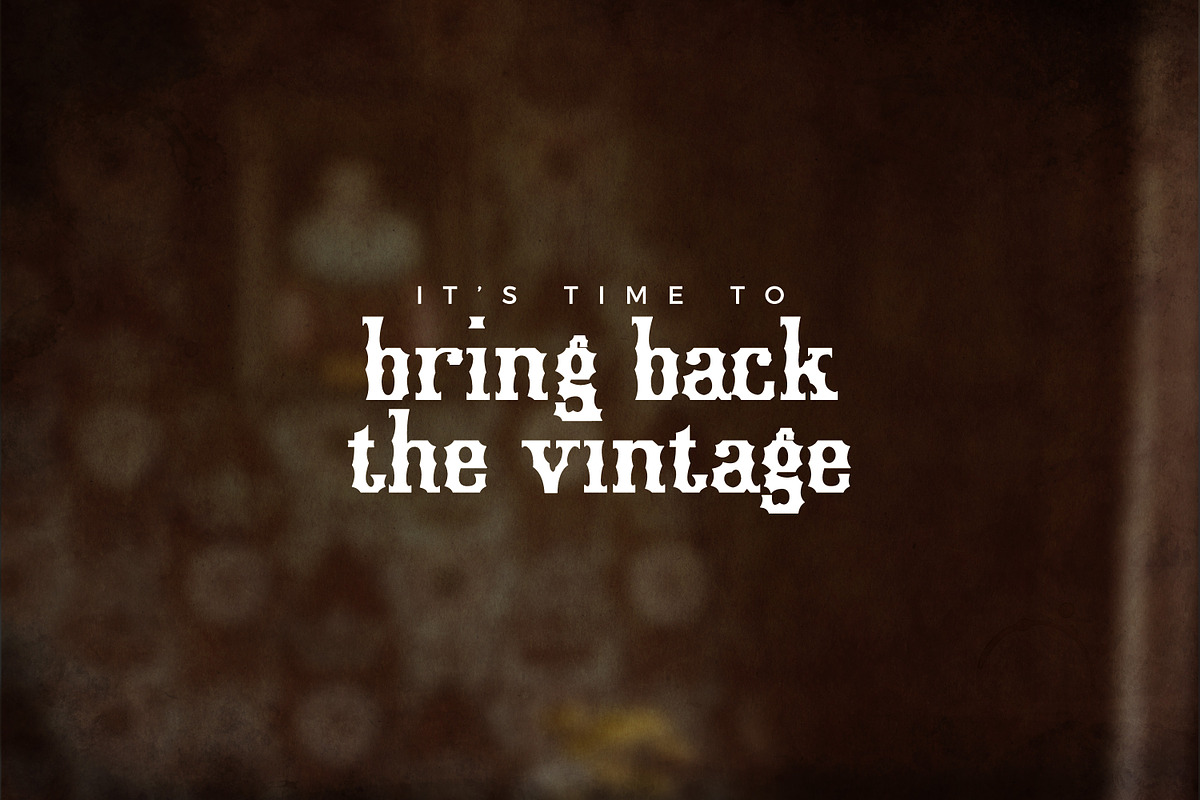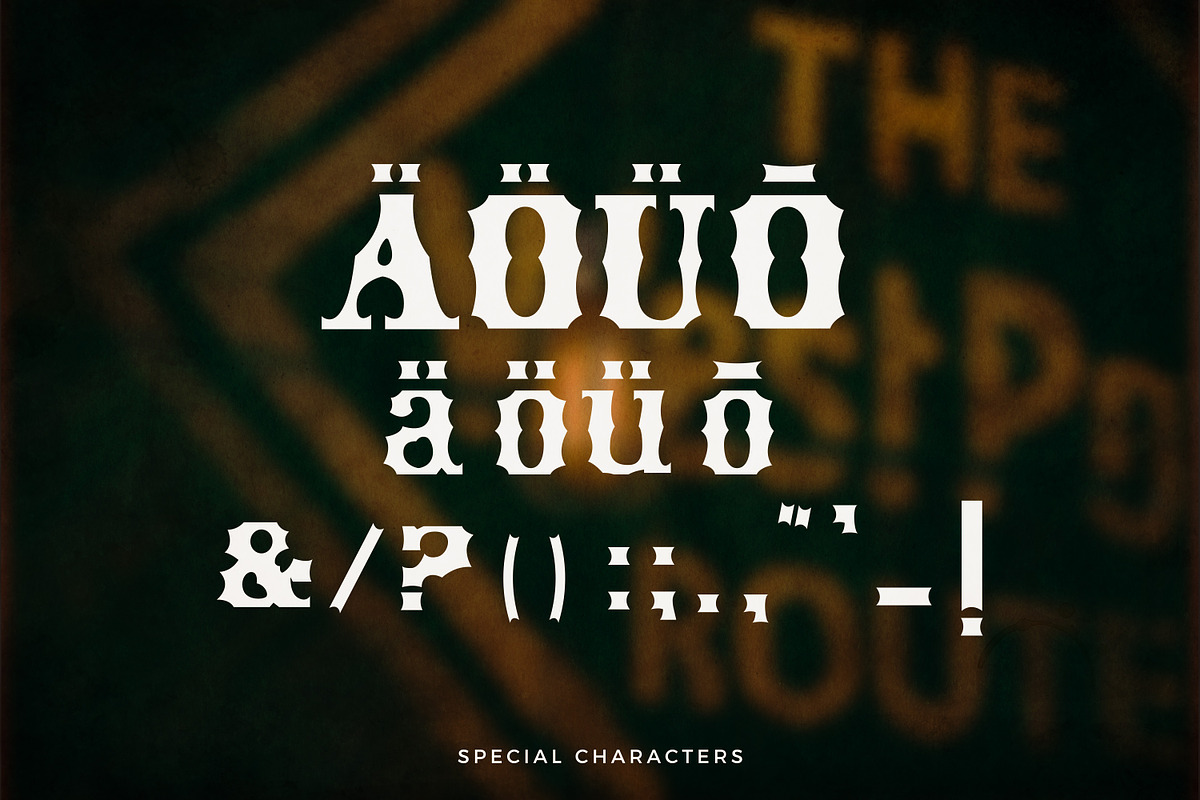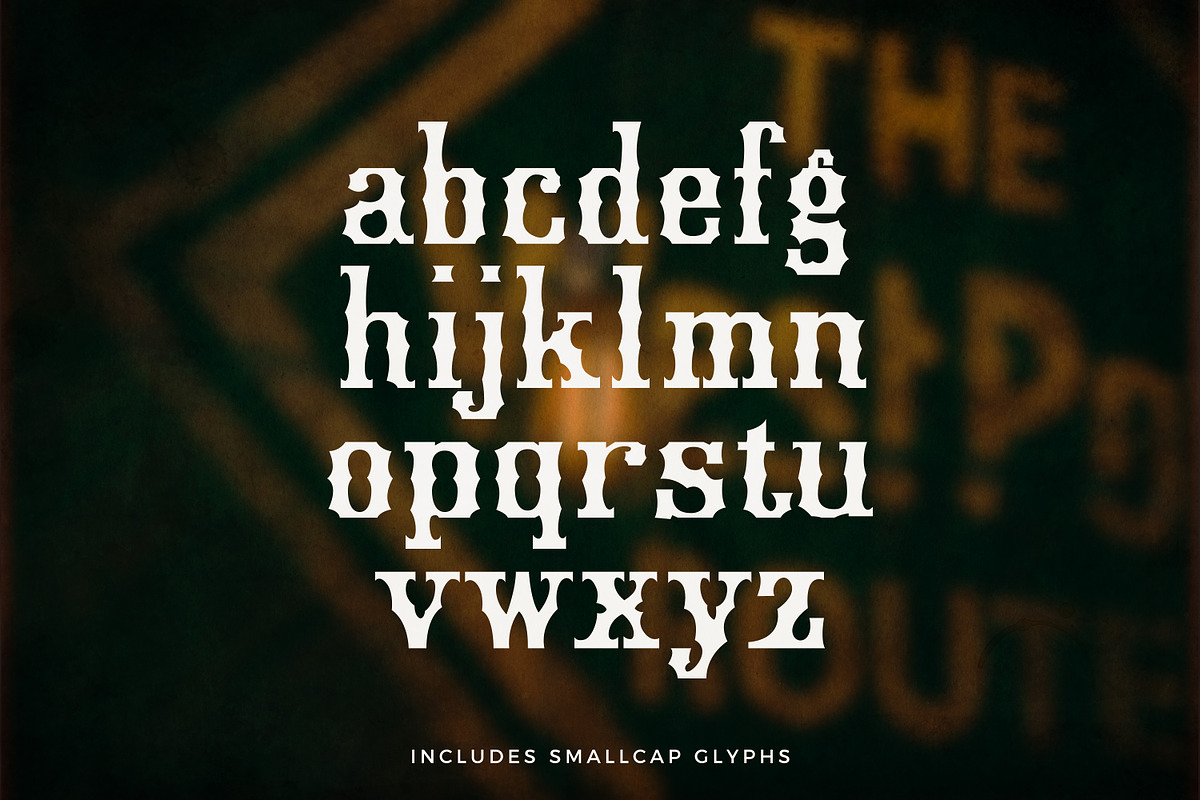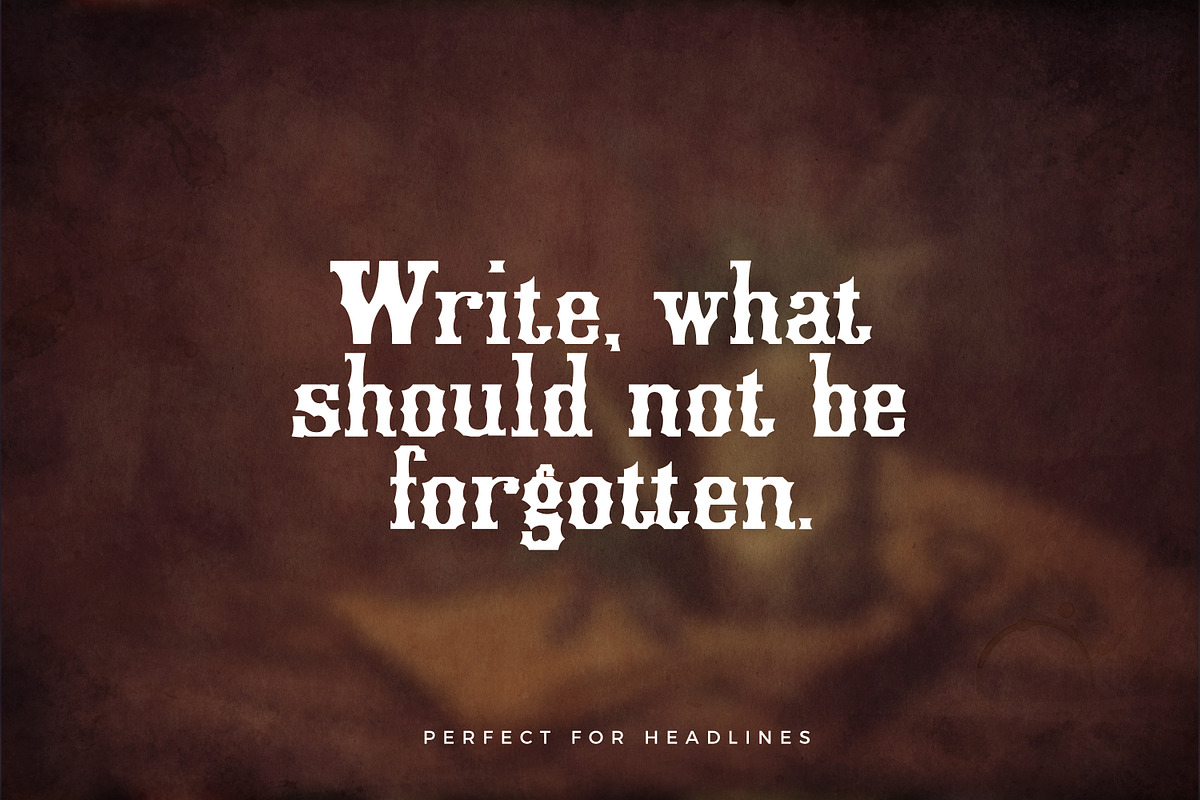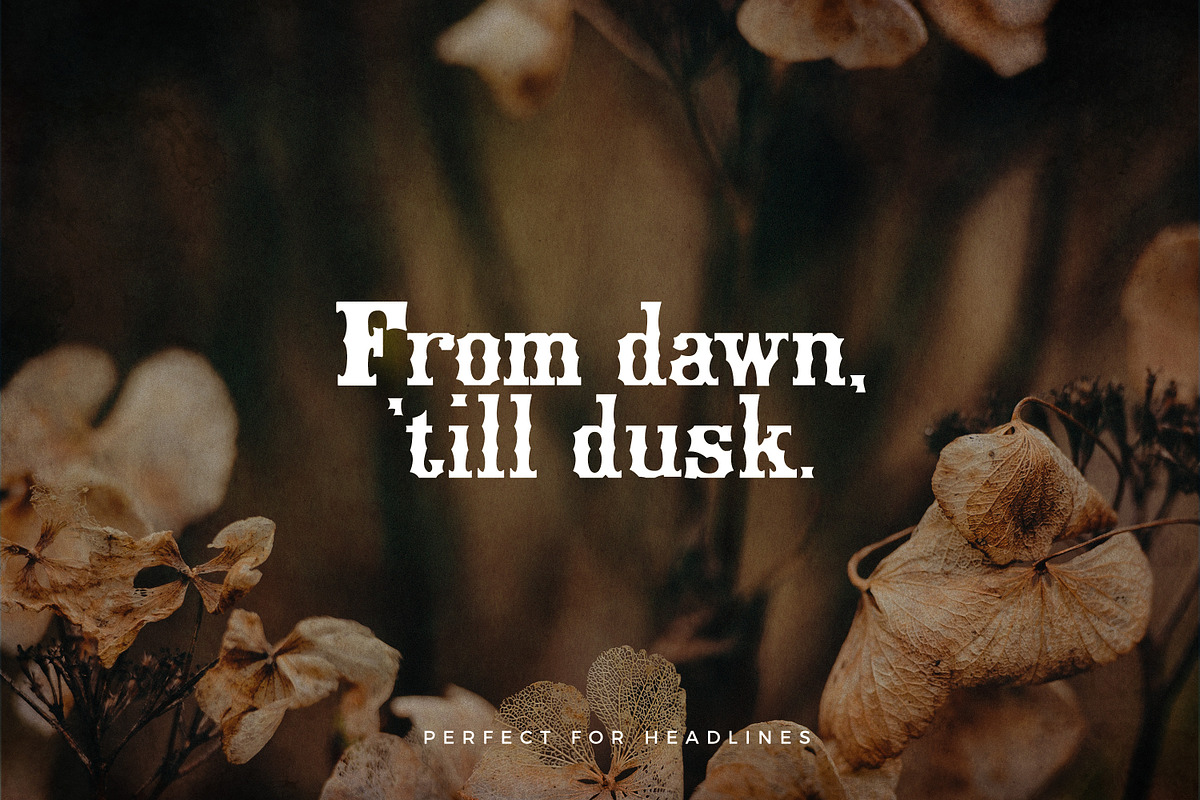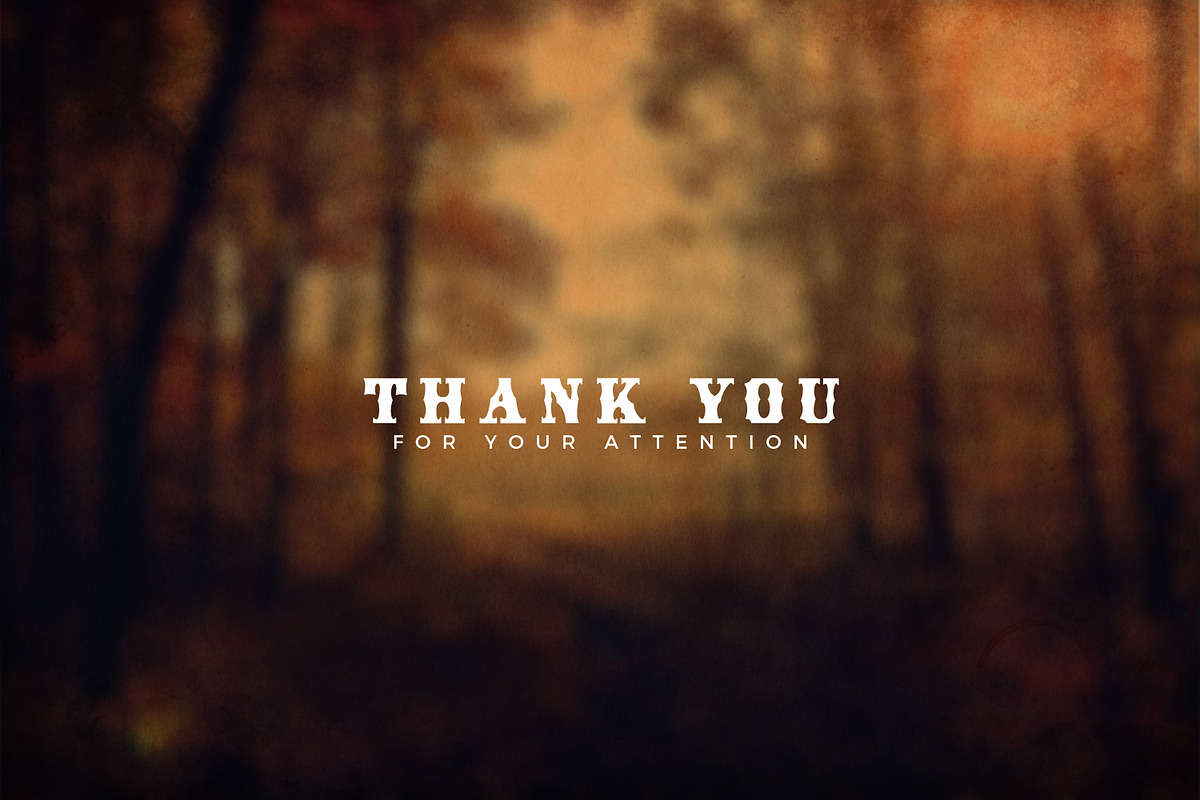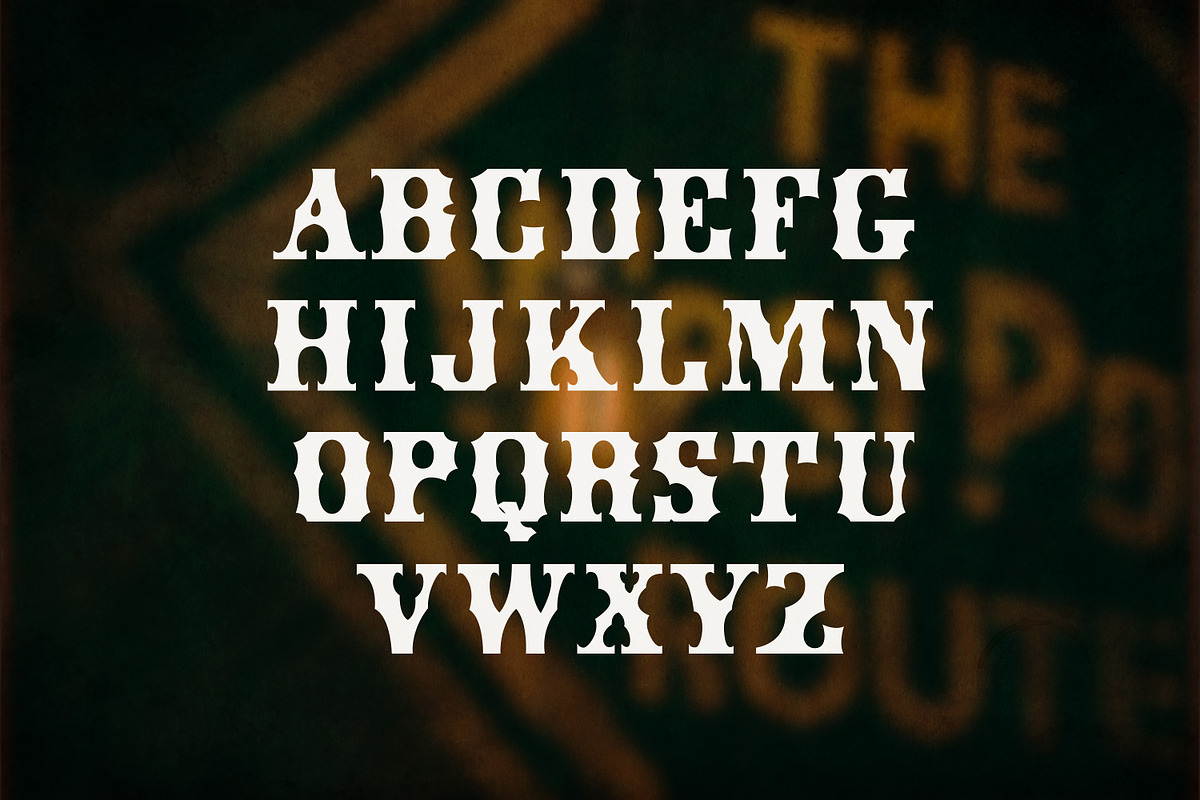
Xavier - Vintage Display Font
Introducing Xavier - A vintage spiky display font Xavier has a slightly Victorian era feel with a touch of steampunk vibes.
This font is best suited for large display sizes such as : logos, quotes, packaging, merchandise,headlines, advertising and more.
Selection of special characters
Pairs perfectly with any modern Sans-Serif font, such as Montserrat (used in the previews)
- Uppercase Character
- Lowercase Charaters
- Selection of special characters